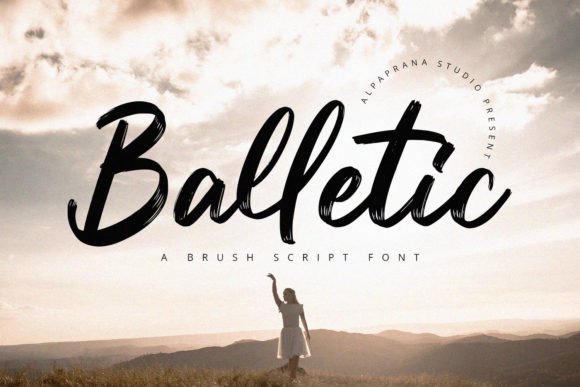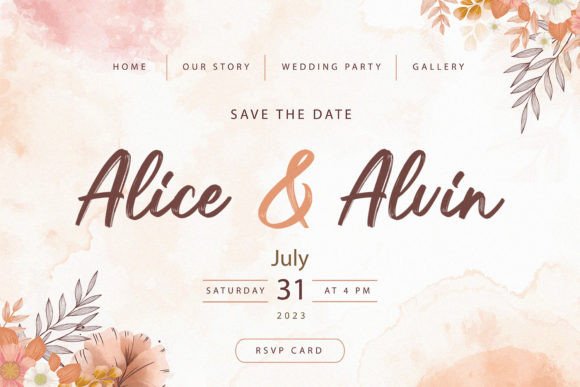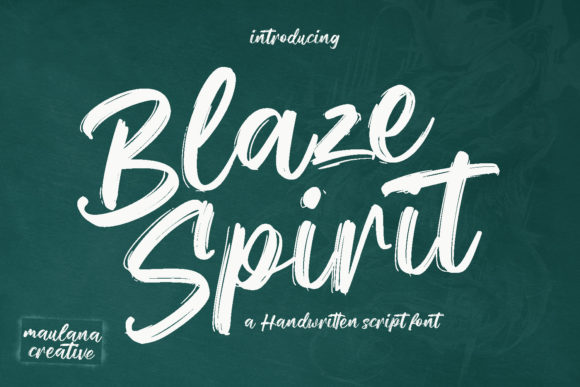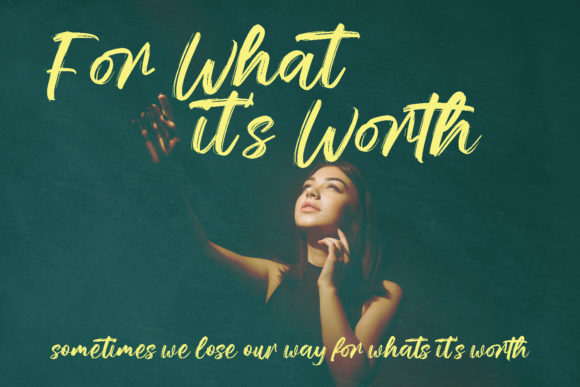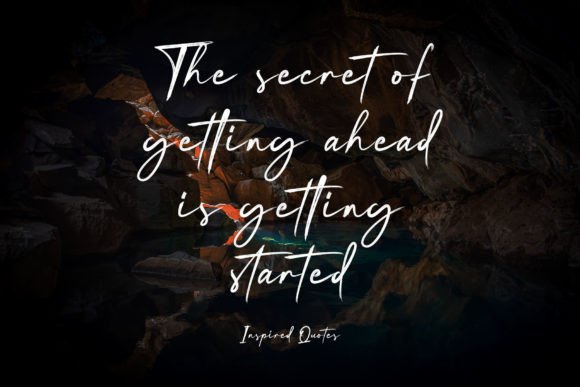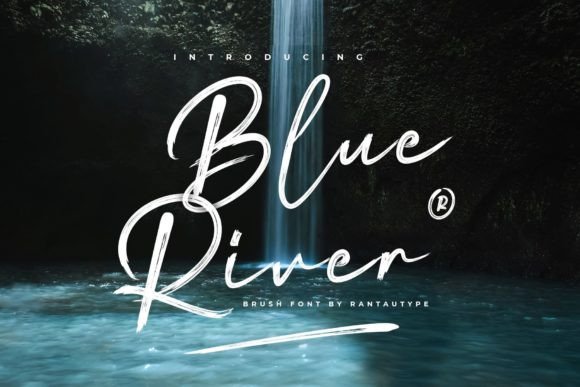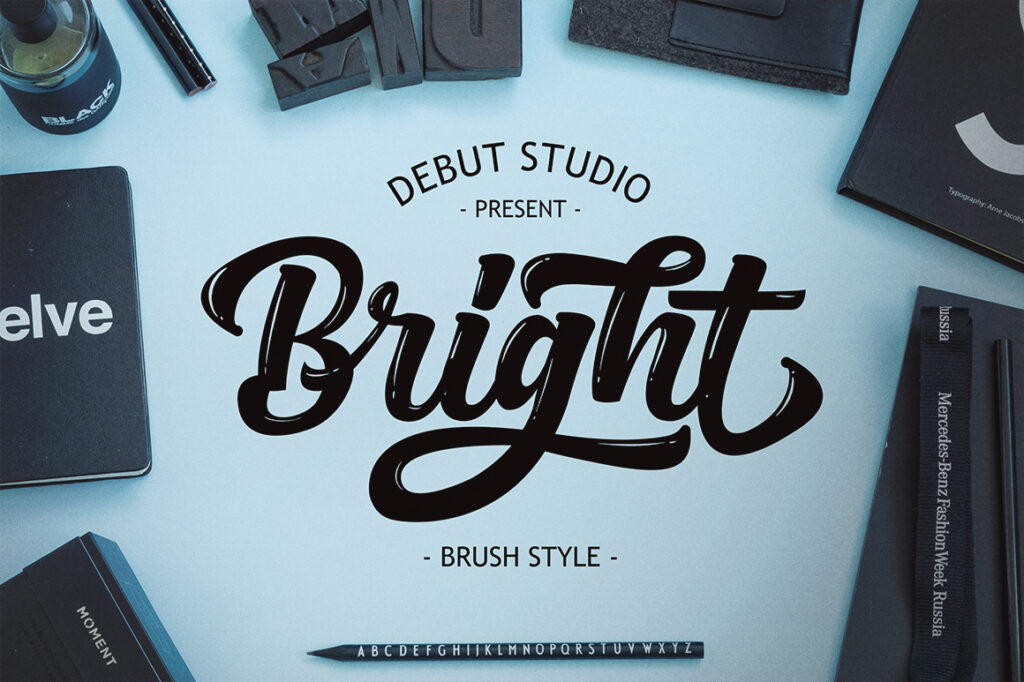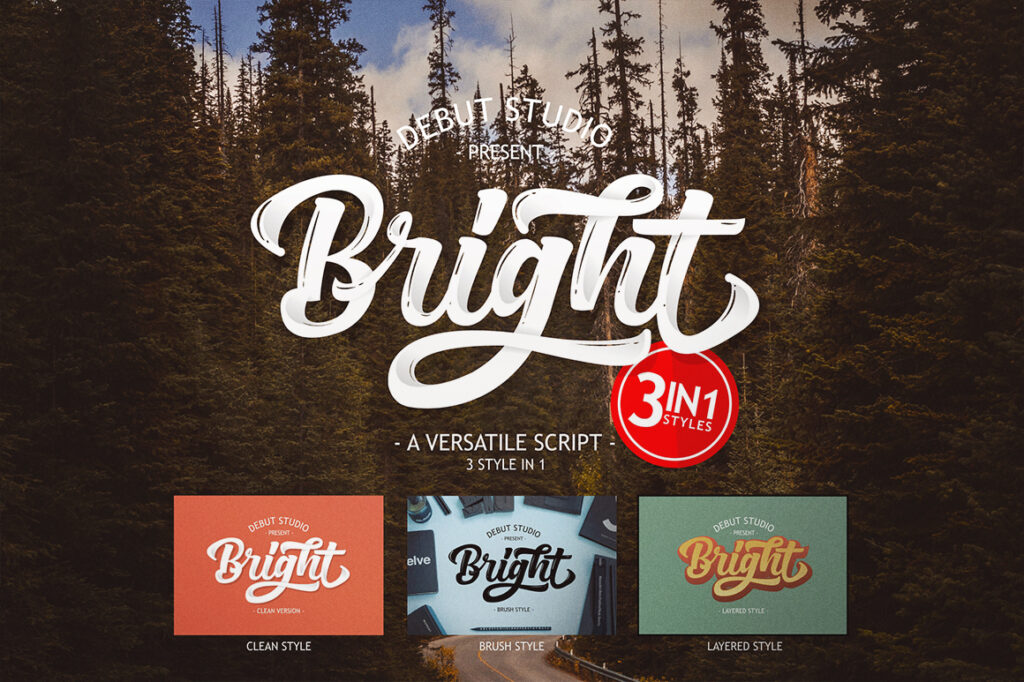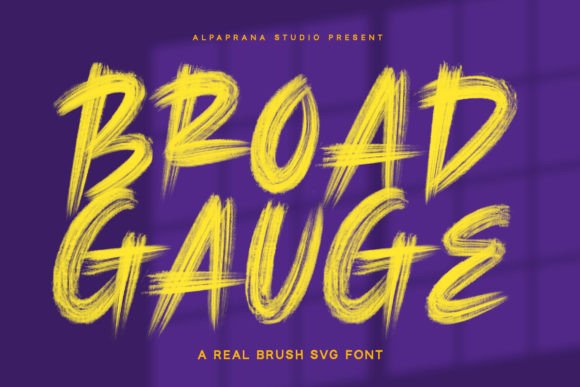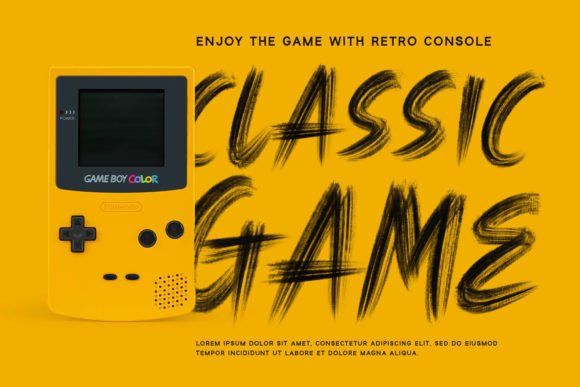
16 Best Brush Script Fonts to Elevate Your Design Projects
Finding the perfect Brush Script Font can be a game-changer for your brand’s aesthetic. I’ve spent hours testing typefaces to curate these 16 favorites that bring authentic, hand-drawn energy to your work. From raw grit to modern grace, these are the tools every designer needs.
1. Katvondy Marker Brush Script Font
When I first loaded up Katvondy in my workspace, I was immediately struck by its spontaneous energy—it isn’t just another digital imitation; it feels like a genuine, hand-drawn Brush Script Font that actually carries some personality. The slanted, bold marker strokes give the characters a fun, expressive character that is often missing from more rigid typefaces.
I’ve found that this font really shines when you need to strike a balance between a “handmade” look and professional design. While it’s a natural fit for high-impact projects like logo design or movie titles, I’ve also been using it for secondary text to add a touch of elegant flair to social media posts and letters. It’s quickly becoming one of my go-to tools for adding a human, approachable feel to any brand identity.
2. Blaze Spirit Brush Script Font
There is something undeniably electric about a typeface that captures the raw movement of a hand-held tool, and Blaze Spirit is exactly that kind of Brush Script Font. It immediately stands out with a bold contrast in its strokes, giving every word a sense of high-end, “fancy” energy without losing its playful edge. When I am looking for characters that feel alive on the page, the expressive nature of this font makes it a top-tier choice for any creative project that needs to command attention.
Beyond just the initial visual impact, what really sold me on this one was the thoughtful inclusion of ligatures—those subtle connections that make digital text feel like a custom piece of hand-drawn art. It is incredibly versatile, working beautifully for everything from cinematic movie titles to professional logo designs, especially since it includes full multilingual support. I often find myself pairing it as a secondary accent with a clean serif or sans-serif to create a stunning, sophisticated contrast that looks amazing on social media feeds.
3. Sero Aromad Brush Script Font
Every once in a while, you stumble across a typeface that manages to feel both organic and authoritative at the same time, and that is exactly the vibe I get from Sero Aromad. As a Brush Script Font, it brings a certain tactile quality to the screen that makes your designs feel less like a digital product and more like something crafted by hand.
What I really appreciate about this font is how well it handles different scales, whether you are using it for a high-impact movie title or a heartfelt, long-form letter. It’s a fantastic choice for logo design and social media graphics, but I’ve found it truly shines as a secondary text option—pairing it with a formal signature or another script typeface adds just the right amount of contrast to keep your project feeling modern and sophisticated.
4. Blue River Brush Script Font
Sometimes you need a typeface that doesn’t just sit on page but actually flows, and Blue River is a masterclass in that kind of modern elegance. As a Brush Script Font, its strokes feel incredibly fluid and confident, bringing a dynamic sense of energy to any layout I’m working on. It’s one of those rare finds that manages to look both sophisticated and effortless at the same time, making it a perfect choice when you want to capture attention without looking like you’re trying too hard.
What really makes me keep coming back to this font, though, is the sheer versatility hidden in its ligatures and swashes. I’ve found it to be a game-changer for branding and packaging projects where you need a unique, refined touch that stands out from the crowd. Whether you are building a new logo from scratch or just looking to add a touch of refinement to a creative piece, Blue River offers nearly endless possibilities to make the final design truly your own.
5. Julienia Thompson Brush Script Font
If you’re hunting for something that bridges the gap between traditional calligraphy and a contemporary edge, Julienia Thompson is a Brush Script Font that definitely deserves a spot in your toolkit. Its interesting, handcrafted flow brings an immediate sense of personality to design projects that need to feel both modern and authentic.
What I love about this particular typeface is how well-rounded it is for both high-impact branding and delicate retail work. It’s a natural fit for everything from custom t-shirts and apparel to sophisticated packaging and wedding invitations. Since the letterforms are designed to complement one another so naturally, you can easily use this Brush Script Font to create a cohesive aesthetic for advertising flyers or logo designs that feel professional and polished.
6. Wavy Brick Brush Script Font
Looking for something with raw energy? Wavy Brick is a Brush Script Font that doesn’t just sit on the screen—it actually moves. I love the rough brush texture and those expressive curves that give it a truly authentic, hand-drawn feel. It’s the perfect choice when you want a modern, creative look that feels like it was just painted onto the canvas.
What really sets this typeface apart for me is the pure attitude found in those energetic strokes. I’ve found it’s a brilliant option for streetwear and merchandise, where you need typography that is both bold and stylish. Whether I’m working on a music poster or eye-catching product packaging, this Brush Script Font adds a confident, handcrafted charm that is hard to ignore.
7. Bright Brush Script Font
Every designer knows the value of a versatile asset, and Bright Script is a Brush Script Font that has quickly become a favorite in my collection. The “Brush Version” is specifically tailored for the hand-lettering aesthetic that is so popular on social media right now—it’s the perfect tool for creating inspirational posters or motivational quotes that feel personal and handcrafted.
What makes this particular set so unique, however, is the ability to switch between styles depending on the project’s needs. While the “Clean” version offers a polished and professional look for logos and branding, the “Layered” version allows me to dive into a vintage retro vibe by stacking different styles. It’s rare to find a Brush Script Font that provides this much flexibility, allowing you to create a truly interesting and custom display for any design work.
8. Midnight Brush Script Font
Sometimes a design just needs that perfect balance of grit and grace, which is exactly what Midnight brings to the table. It carries a natural and modern feel that immediately gives a project an effortless, hand-drawn quality without looking unpolished. As a Brush Script Font, it has this unique ability to feel grounded and organic, making it a brilliant choice for when you want your work to feel more human and less like a standard digital output.
What really stands out to me is its incredible range across different mediums—it’s a true workhorse for everything from high-end branding and logo design to more tactile items like clothing and shopping bags. I’ve found it fits perfectly on everything from sleek magazine layouts and book covers to photography and special event invitations. No matter the project, this Brush Script Font adds a polished, creative edge that makes the final result feel like a custom piece of professional lettering.
9. Untouched Brush Script Font
There is a raw, organic quality to Untouched that I find absolutely refreshing in a digital landscape often dominated by overly polished typefaces. As a Brush Script Font, it strikes that perfect balance between a natural, hand-drawn aesthetic and a sleek, modern feel. It’s the kind of font that makes a project feel authentic and lived-in, giving your designs a human touch that is hard to replicate with standard, rigid fonts.
When it comes to actual application, the sheer versatility of this Brush Script Font is where it truly earns its place in my toolkit. I’ve experimented with it for everything from high-end branding and logo design to more tactical projects like clothing, t-shirts, and shopping bags. Whether I’m working on a magazine layout, a book cover, or even specialized photography for events, it brings a cohesive, stylish energy that makes the final result stand out.
10. Ralietta Brush Script Font
Lately, I’ve been finding myself drawn to typefaces that bridge the gap between digital precision and organic texture, and Ralietta hits that sweet spot perfectly. As a Brush Script Font, it brings a beautifully natural and modern look to the canvas, making any layout feel instantly more authentic and approachable.
One of the things I love most about this particular script is how effortlessly it adapts to different platforms. If you are on the hunt for engaging fonts for Instagram or need high-quality calligraphy scripts for your latest DIY projects, this font is a total game-changer. It really does have the power to turn a basic creative idea into a true piece of art, which is exactly why I keep it at the top of my list for new projects.
11. Long Path Brush Script Font
When I’m looking for a typeface that captures the raw essence of ink on paper, Long Path is usually one of the first I reach for. This is a stunning Brush Script Font that manages to maintain its authentic and natural feel, making any digital layout look as though it was hand-painted just moments ago.
What I appreciate most about this typeface is its incredible range, which is perfect for someone managing multiple creative projects. It’s a true powerhouse for branding and logo design, but I also love seeing it on tactile items like packaging, t-shirts, and shopping bags. Whether I’m working on a book cover or high-end photography, this Brush Script Font adds a dynamic, professional touch that feels both modern and timeless.
12. Hoolystars Brush Script Font
There’s a certain effortless charm in finding a typeface that feels like a quick, confident stroke of a marker, and Hoolystars captures that casual energy perfectly. As a Brush Script Font, it features slanted, regular brushstrokes that give every word a “fun character” and a lively sense of movement. I love using it when I need a layout to feel approachable and spirited rather than overly formal.
What I really appreciate as a designer is the attention to those tiny flourishes—like the subtle ligatures and swashes—that make this Brush Script Font feel like actual hand-lettering. It’s incredibly versatile, working seamlessly for everything from social media posts and logo design to high-impact movie and book titles. Whether you’re working with short headings or longer blocks of text, Hoolystars is a fantastic tool for creating truly stunning work that stands out.
13. Broad Gauge Brush Script Font
Finding a typeface that genuinely feels “new” in such a crowded market is a rare win, and Broad Gauge is one of those special discoveries. It’s a Brush Script Font that manages to balance a unique, modern edge with a very natural flow, making it feel less like a digital asset and more like a custom piece of hand-lettering.
Beyond the aesthetics, the sheer functionality of this script is what really makes it a standout choice for my daily workflow. I’ve found that this Brush Script Font works beautifully across a massive range of projects—from high-impact branding and logo design to more tactile items like clothing, packaging, and shopping bags. It’s become a go-to for me when I need that extra touch of personality on book covers or photography projects, ensuring the final design feels both professional and full of life.
14. Balletic Brush Script Font
If you’re looking for a font that truly dances across the page, Balletic is a standout choice that certainly lives up to its name. As a Brush Script Font, it brings a “cool,” effortless handwritten quality to the table that feels both rhythmic and modern. I love the way the strokes flow together, giving the impression of a quick, confident hand that doesn’t sacrifice legibility for style.
The real beauty of this typeface lies in how effortlessly it translates across different creative projects, making it a joy to work with. Whether I’m designing a bold headline or adding a personal touch to a minimalist layout, this Brush Script Font adds a layer of authentic charm that is hard to ignore. It’s the kind of asset you can add confidently to your design toolkit, knowing that the final results will always feel polished and intentional.
15. Saffior Brush Script Font
There’s something undeniably sophisticated about a typeface that balances high-end elegance with a bit of a playful edge, and Saffior is the perfect example. This Brush Script Font stands out in any layout thanks to its bold contrast strokes and a “fancy” handwritten vibe that feels incredibly bespoke. I’m especially fond of the extra creative options included, like the alternates and ligatures, which let you tweak the character of the text until it fits the project’s mood exactly.
Beyond the initial visual impact, I’ve been impressed by how well this font functions as a workhorse in a daily design routine. It’s a natural choice for high-impact items like movie titles or logo designs, but it’s surprisingly legible for short or even long-form text. One of my favorite tricks is using it as a secondary script to complement a minimal sans or serif font; the contrast always results in a stunning, professional look that works across social media, book covers, and everything in between.
16. Melovice Brush Script Font
Sometimes you need a font that isn’t afraid to show its texture, and Melovice is exactly that kind of expressive Brush Script Font. It is intentionally crafted with dry brush imperfections, which gives it a raw, tactile energy that is perfect for making strong visual statements in professional digital creations. Whenever I want to break away from a standard digital look, I turn to these gritty strokes to add a sense of hand-crafted authenticity to the design templates I develop.
What I find most interesting about this typeface is how beautifully it handles message-driven projects, which is why it has become a staple in my collection for wedding-themed designs. It’s a natural fit for greeting cards and invitations, but it really shines when used for framed motivational quotes where the words need to carry a bit of extra weight. It is a fantastic Brush Script Font for articulating your best messages with a unique personality that feels both modern and deeply personal.
Conclusion